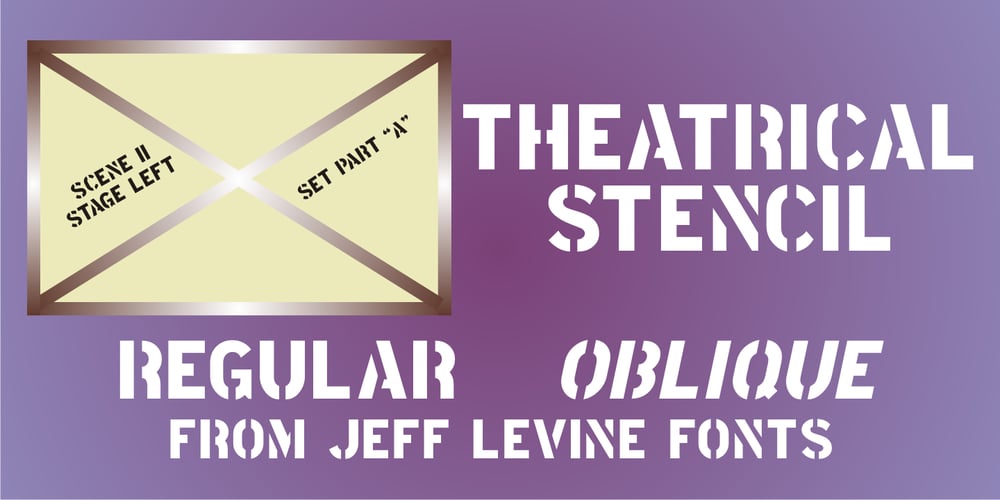
Theatrical Stencil JNL Font Family was designed by Jeff Levine and published by Jeff Levine. Theatrical Stencil JNL contains 2 styles and family package options. A vintage hand-punched brass stencil for the Pasadena Playhouse spotted online was the basis for Theatrical Stencil JNL. Slight variations in the letter forms from other similar designs might not quickly be noticed, but there is always a charm in the hand-made look of any stenciled lettering.